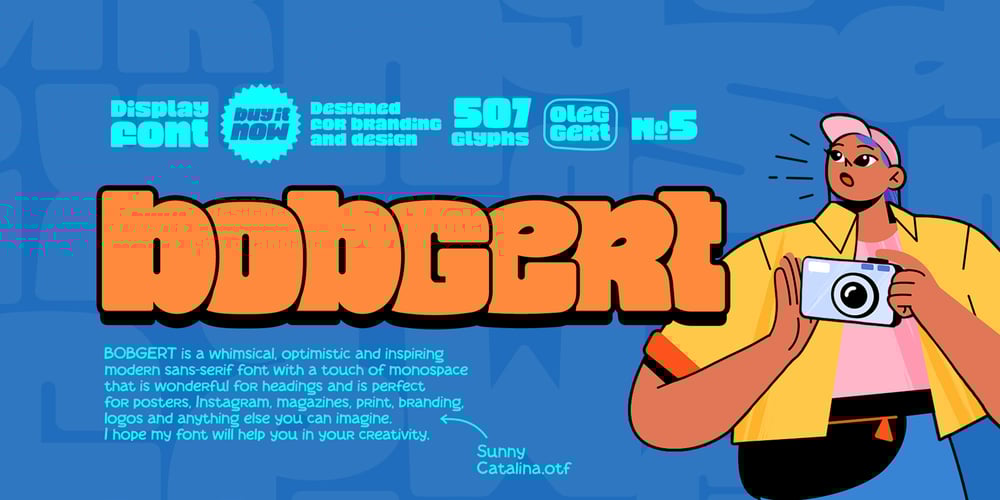
Bobgert Font Family was designed by Oleg Gert and published by Oleg Gert. Bobgert contains 1 styles and family package options. Bobgert – is a whimsical, optimistic and inspiring modern sans-serif font with a touch of monospace that is wonderful for headings and is perfect for posters, Instagram, magazines, print, branding, logos and anything else you can imagine. I hope my font will help you in your creativity.